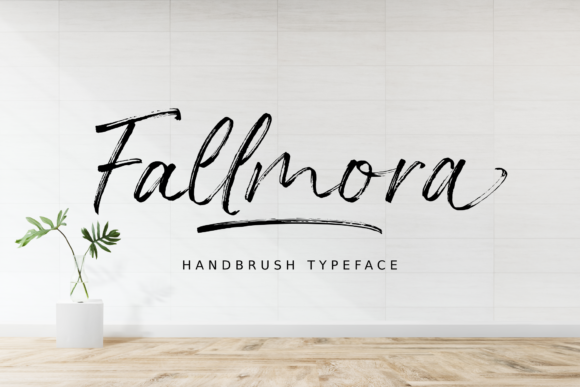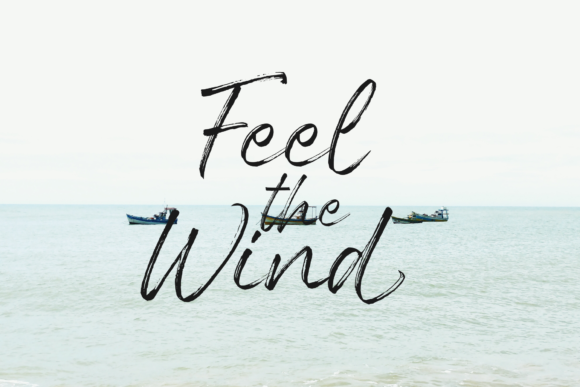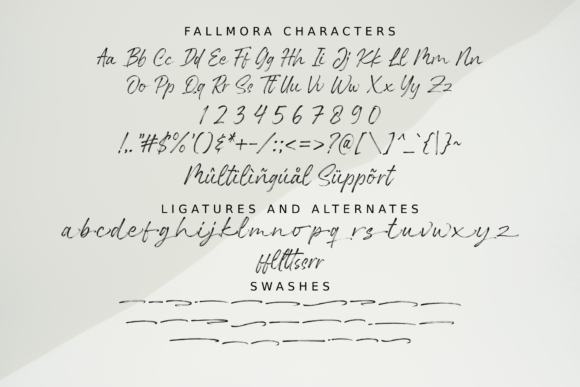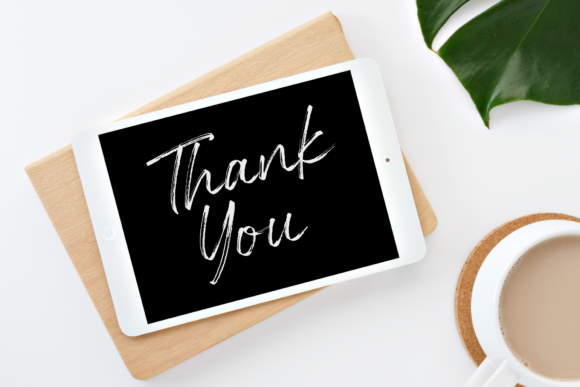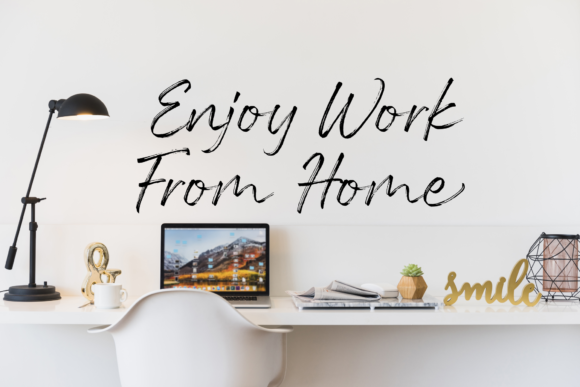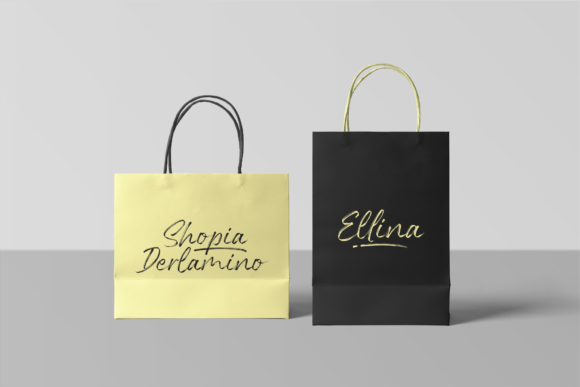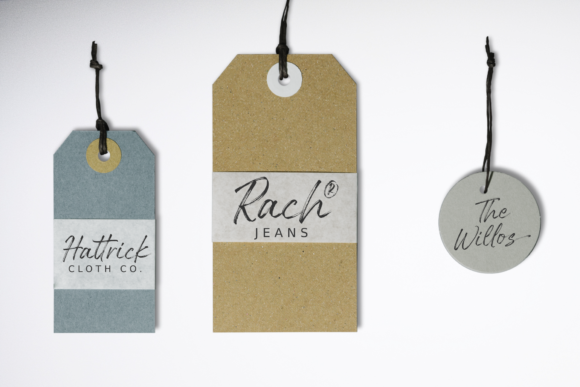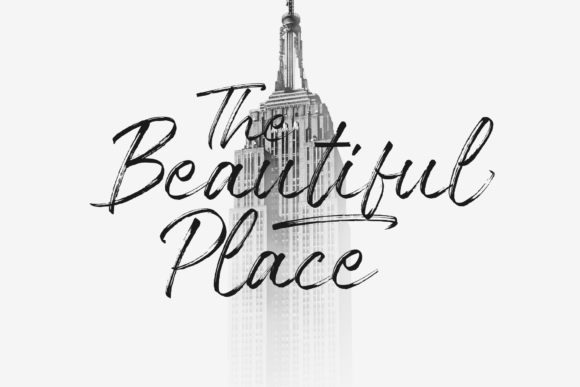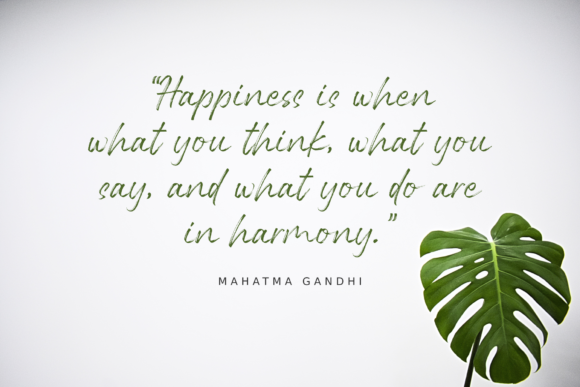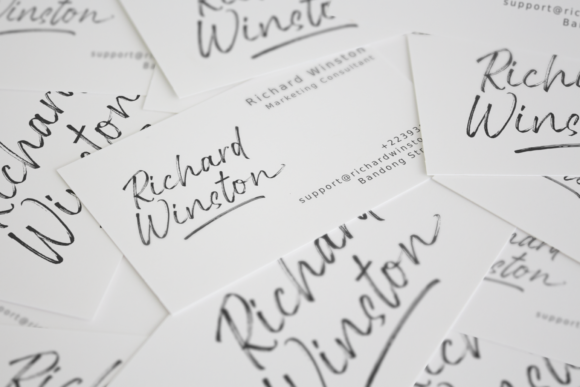
Fallmora Font
About Fallmora Font
Fallmora is a casual and charming handwritten font, created by using a brush pen. This enchanting font will turn any creative idea into a true standout.